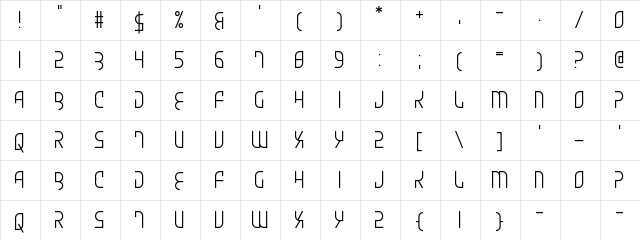
Skydiver On The Wing Regular
Design Context for Skydiver On The Wing Typeface
Skydiver On The Wing takes a measured approach to typography — its balanced proportions and neutral character make it a reliable workhorse for both digital and print work.